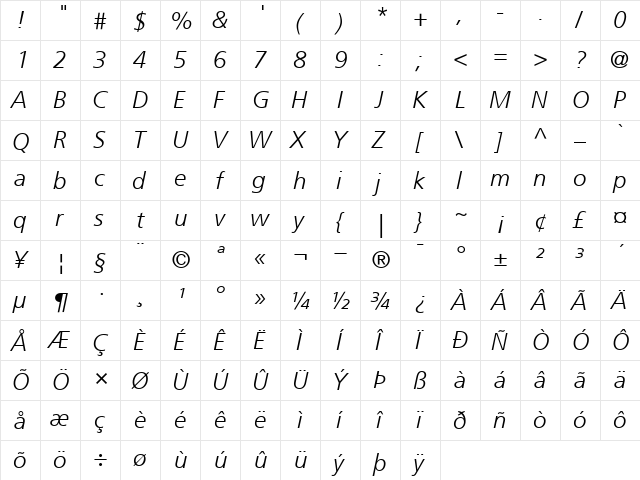
Frutiger46-Light LightItalic Font Preview
Design Context for Frutiger46-Light Typeface
Frutiger46-Light offers clean, dependable letterforms without strong stylistic allegiance, making it a practical choice for designers who need flexibility. Its italic angle brings a sense of urgency and motion to the letterforms. Its slender proportions lend an understated elegance to any composition.
Pro Tip: Try Frutiger46-Light for annotation and caption copy alongside an upright companion — the contrast in angle creates a dynamic but ordered typographic system.